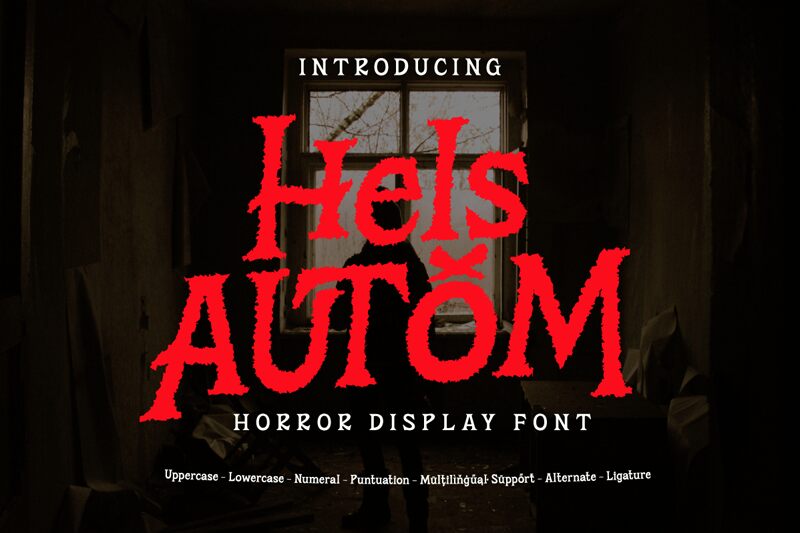
Hels Autom font family by twinletter is a grungy and distressed typeface inspired by horror movie fonts. The font family includes 2 font styles where unusual and characteristic letters are combined to form unusual words. The font can be set in various ways; horizontally, vertically, linearly, and randomly.
Add drama and a spooky exaggerated effect to your next project using this font. It will make an exceptional addition to your YouTube horror stories, Game logos, gaming profiles, horror movie posters, character introduction, posters, album cover art, titles for Twitch, different social media designs, etc.